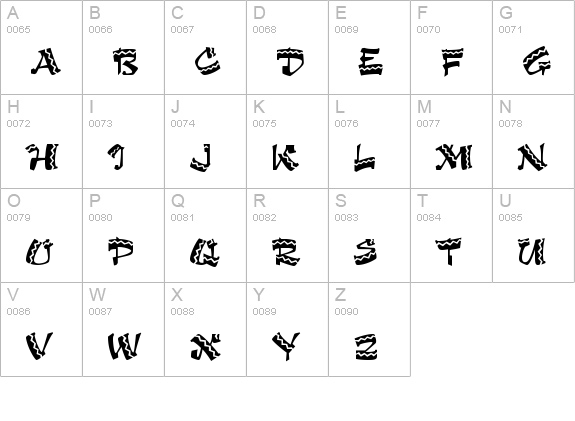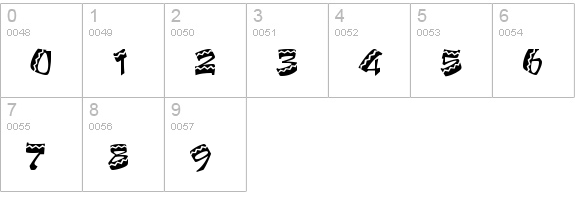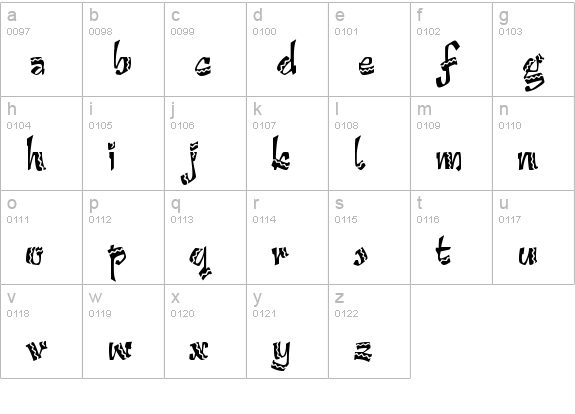
Arriba Arriba LET Plain:1.0 Font Details
Arriba Arriba LET Plain:1.0 is a lively and playful font that exudes energy and excitement. Its bold and dynamic design makes it perfect for headlines, posters, and other eye-catching designs. The unique letterforms of Arriba Arriba LET Plain:1.0 add a touch of fun and whimsy to any project. The best part? Arriba Arriba LET Plain:1.0 is completely free to download at FontsMarket.com. This means you can easily access this vibrant font and incorporate it into your designs without any cost. Don't miss out on the opportunity to add a burst of creativity to your projects with Arriba Arriba LET Plain:1.0!